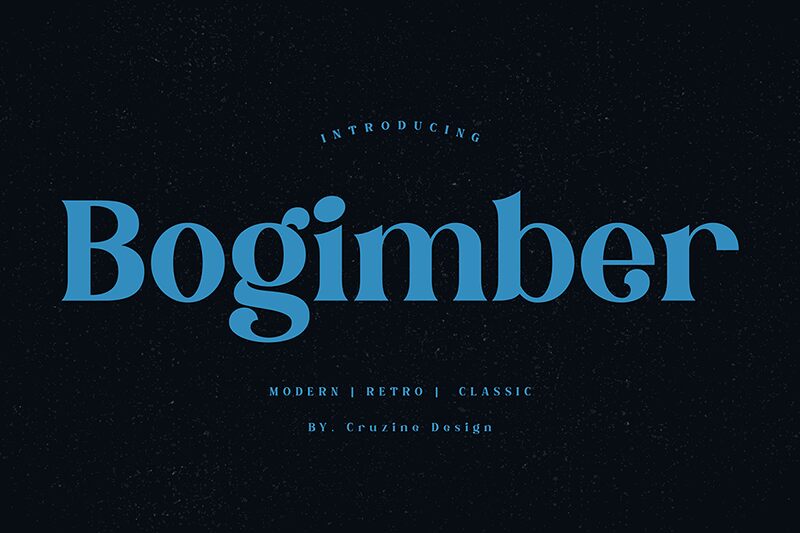
Bogimber Regular
Bogimber, the bold serif font by Peter Olexa, exudes sophistication and elegance.
Its strong and distinctive characters make it perfect for luxury branding projects, adding a touch of refinement to product packaging or corporate logos. With its clean lines and commanding presence, Bogimber is also well-suited for editorial design, conveying confidence and authority in magazine spreads or book covers. Whether you're aiming for classic sophistication or contemporary chic, this bold serif font is sure to make a lasting impression in any project.